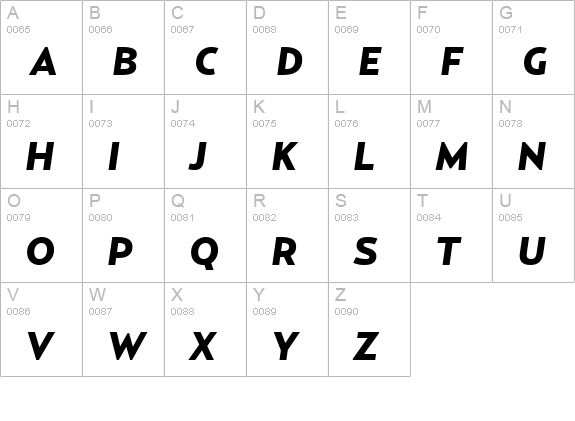
Relay-BlackItalic Font Details
Relay-BlackItalic is a captivating and distinctive font that effortlessly combines elegance with a touch of modernity. Its sleek and slanted design exudes a sense of sophistication and professionalism, making it the perfect choice for various creative projects. With its bold and italicized nature, Relay-BlackItalic adds a sense of drama and intensity to any text. Whether it is used for headlines, logos, or body copy, this font commands attention and leaves a lasting impression. One of the most remarkable aspects of Relay-BlackItalic is that it is freely available to download at FontsMarket.com. This means that you can effortlessly enhance your designs without any financial constraints. The ability to access this font for free allows you to explore its vast potential and incorporate it into a wide range of projects, both personal and commercial. The versatility of Relay-BlackItalic is truly unmatched. Its clean and sharp letterforms make it legible even at smaller sizes, ensuring that your message is effectively communicated. Moreover, the font's unique style effortlessly bridges the gap between classic and contemporary design, making it suitable for various industries and purposes. Whether you are designing a sleek corporate website, an eye-catching poster, or an elegant wedding invitation, Relay-BlackItalic is the ideal choice to elevate your project to new heights. Its timeless appeal and freely accessible nature make it a must-have addition to any designer's toolkit. So why wait? Head over to FontsMarket.com, where you can freely download Relay-BlackItalic and unlock the endless possibilities that this remarkable font has to offer. Embrace its elegance, make a bold statement, and captivate your audience with the seamless blend of sophistication and modernity that Relay-BlackItalic effortlessly embodies.